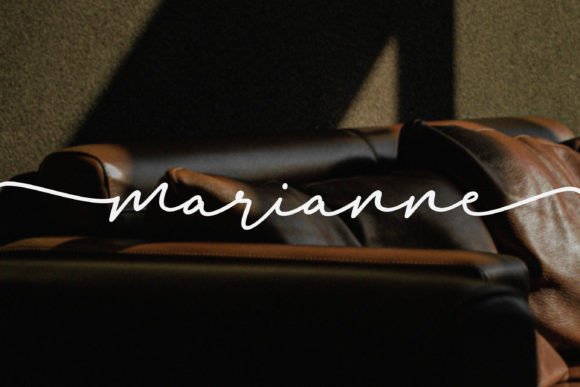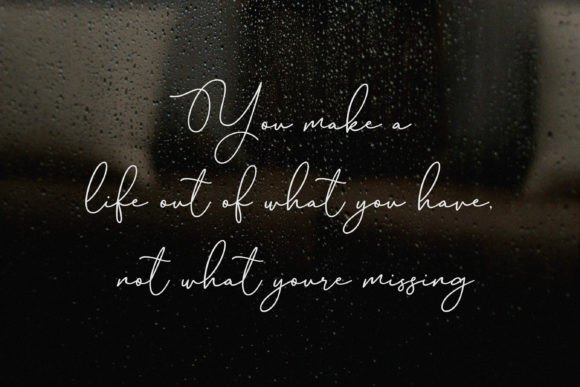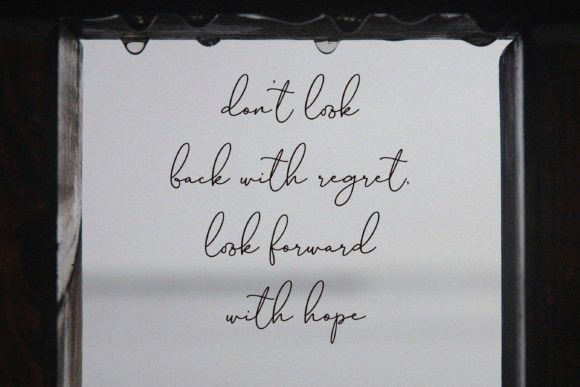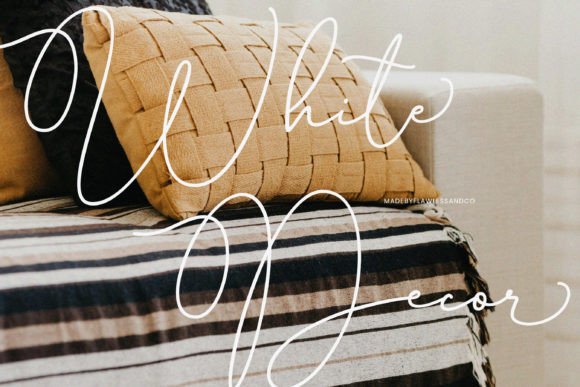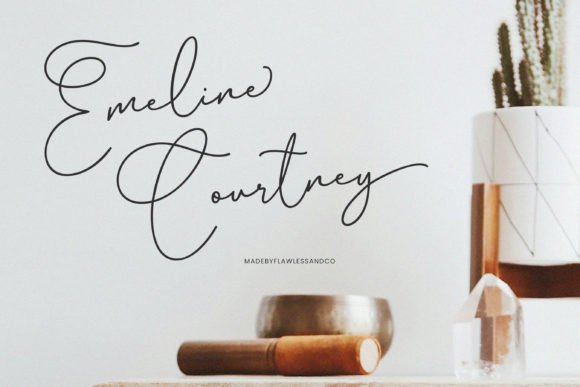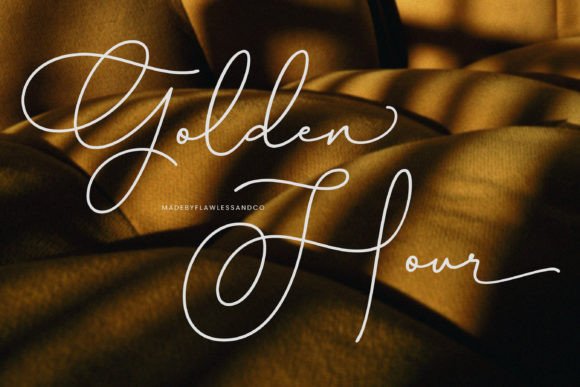
Where Words Become Art
Have you ever stopped to think about the power of a single font to transport you back to a special moment in time? Perhaps it’s the delicate script on your grandmother’s old love letter, or the elegant invitations from your wedding day. For designers, the search for the perfect font can be a lifelong quest, and one that yields a treasure trove of creative possibilities.
| 👤 Author | Flawless And Co |
Enter Andrew Britton Font, a masterpiece of elegance and sophistication that’s sure to captivate your audience. This beautiful signature script font is designed to evoke the timeless beauty of calligraphy, making it the perfect choice for wedding invitations, stationery, and other special occasion materials. Whether you’re a seasoned designer or just starting out, Andrew Britton Font is a valuable addition to your toolkit, offering a level of refinement and romance that’s hard to find elsewhere.
Andrew Britton Font Key Features
- Unique Characteristics: The font features a modern, clean design with a unique blend of geometric and organic elements, making it suitable for a wide range of applications, from corporate branding to digital products
Andrew Britton Font Review
Overall, I think the Andrew Britton font is a decent addition to any design project, but it has its limitations.
- ✨ The font’s elegant, handwritten feel is perfect for titles, headings, or any text that requires a touch of sophistication.
- ✨ The high-quality vector files ensure that the font looks crisp and clear on both digital and print media.
- ✨ The font is highly legible, even at smaller font sizes, making it a great choice for body text or captions.
- ⚠️ The font may not be ideal for use in formal or professional settings, as its handwritten feel can come across as unpolished.
- ⚠️ Some users may find the font’s flourishes and swashes too ornate or distracting, which can affect readability.
- ⚠️ The font may require some adjustments to spacing and alignment to ensure proper legibility.
Overall, I think the Andrew Britton font is a great choice for creative projects, branding, or any design that requires a unique, handmade feel. However, it may not be the best fit for more formal or corporate designs.
The Andrew Britton Font is ideal for:
- Creating modern and elegant designs.
- Designing professional and sophisticated presentations.
- Writing articles and blog